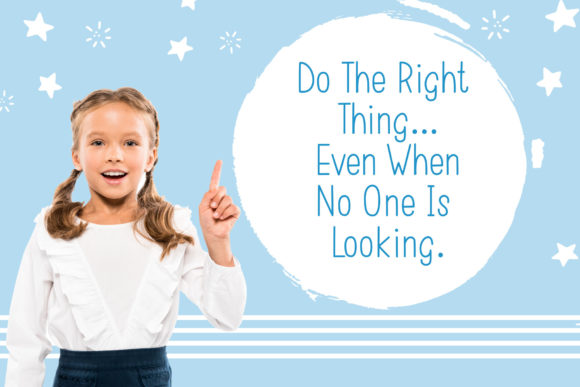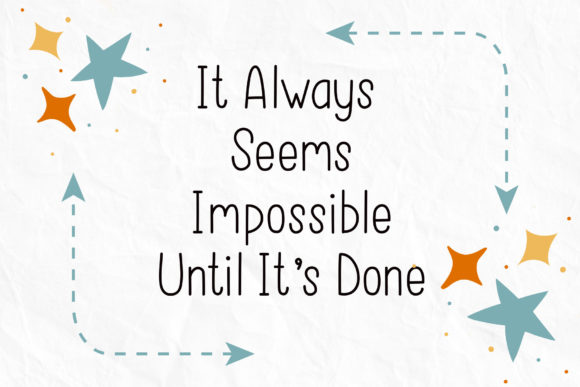
The Perfect Font for the Homeschooling Heart
Do you remember the moment you stumbled upon the perfect font for your project? The one that just clicked, and you knew it was going to make all the difference? For me, it was when I discovered the Home School Font – a tall and cute, easy-to-read sans serif font that instantly made my designs come alive.
As a designer, I’m always on the lookout for fonts that are versatile, yet unique. That’s exactly what Home School Font offers – a perfect blend of style and functionality that makes it suitable for a wide range of projects, from blog posts and logos to invitations and photo albums. With Home School Font, you can create designs that are both beautiful and easy to read, making it a valuable addition to any designer’s toolkit.
Home School Font Key Features
- Font Size: The font comes in three sizes: Regular (400 units), Bold (700 units), and Outline (400 units). This variety allows for flexibility in design and readability.
- Unique Characteristic: The font features a unique, hand-drawn design that evokes a sense of warmth and approachability, making it perfect for educational and children’s materials.
- Character Set: Home School Font includes a comprehensive character set, including uppercase and lowercase letters, numbers, and punctuation marks, ensuring that users have access to all the characters they need.
Designer Review: Home School Font
As a designer, I was excited to dive into the “Home School Font” and see what it had to offer. Here’s my honest review:
- Unique blend of modern and traditional elements, making it perfect for educational settings.
- Legibility is top-notch, making it easy to read even at smaller font sizes.
- The font is highly customizable, allowing designers to adjust the weight, spacing, and more.
- The font comes in a variety of styles, including bold, italic, and condensed versions.
- The font may not be suitable for high-end branding or marketing materials, as it’s more geared towards educational and informal settings.
- The font’s uniqueness can also be a drawback, as it may not appeal to those looking for a more traditional or conservative font.
- Some users may find the font’s irregularities (e.g., uneven stroke widths) distracting or unprofessional.
Overall, I think the “Home School Font” is a solid choice for educational institutions, non-profits, or anyone looking for a friendly, approachable font. While it may not be perfect for every project, it’s a great option for those who want a unique and customizable font that’s easy to read.
Tips for Getting the Most Out of Home School Font
Use Home School Font to create engaging and professional-looking materials for your homeschooling journey. Experiment with different font sizes, colors, and styles to add visual interest to your projects.
Home School Font is ideal for:
- Creating lesson plans and worksheets
- Designing homeschool curriculum materials
- Developing educational posters and infographics
Q: Does the Home School Font include any special features or ligatures?
Yes, the Home School Font includes a range of OpenType features, including ligatures, swashes, and contextual alternates. These features can be accessed in compatible design applications, such as Adobe Creative Cloud or Sketch.